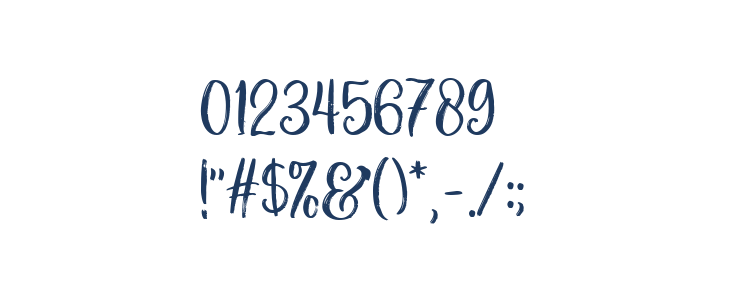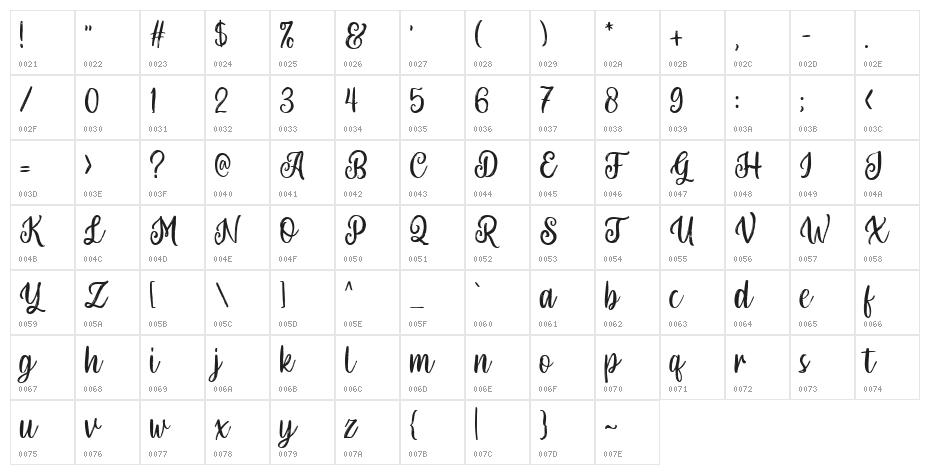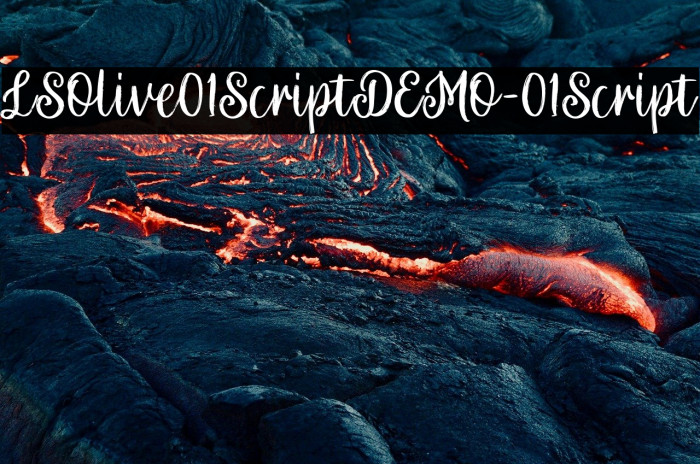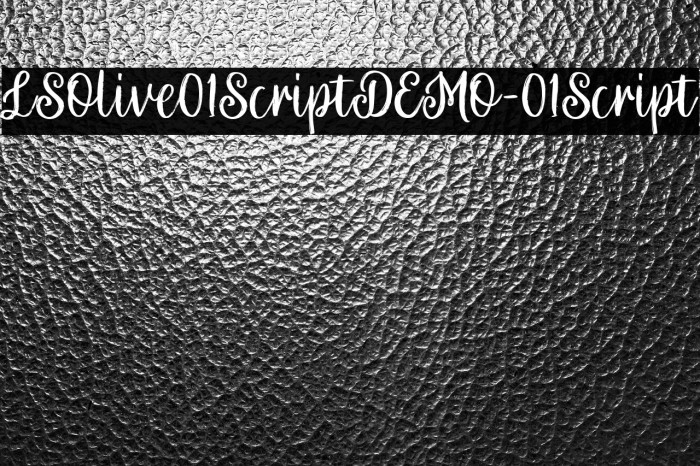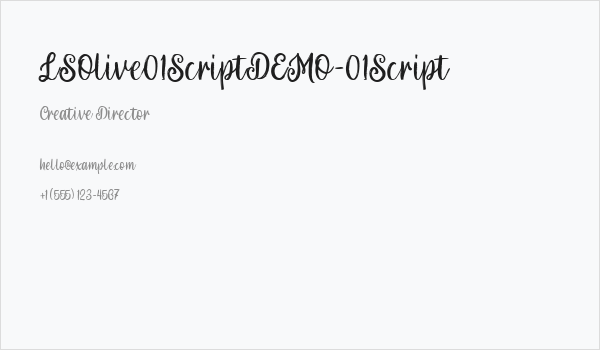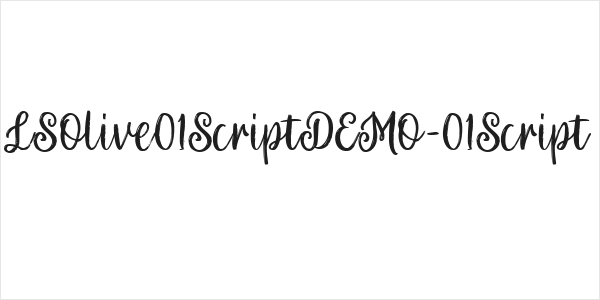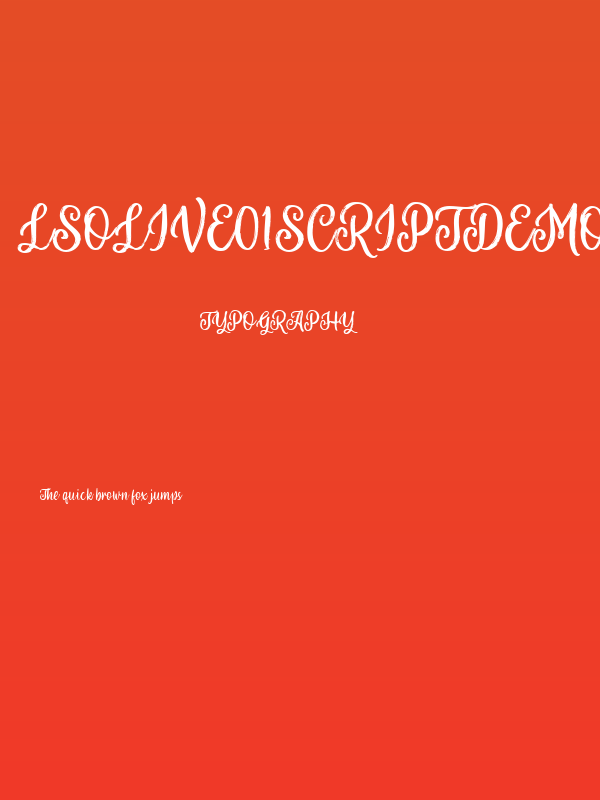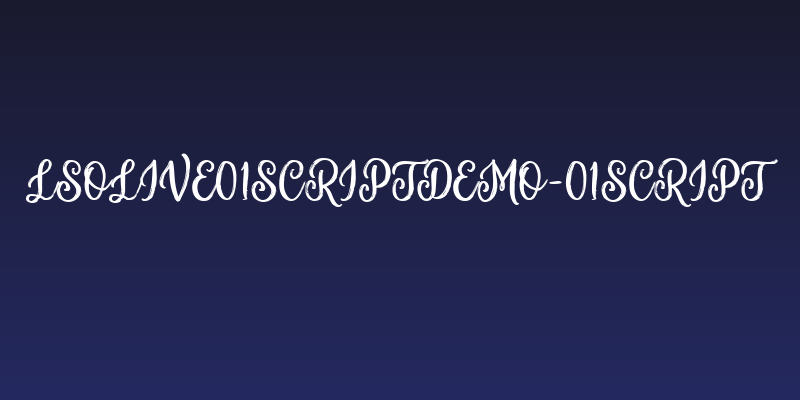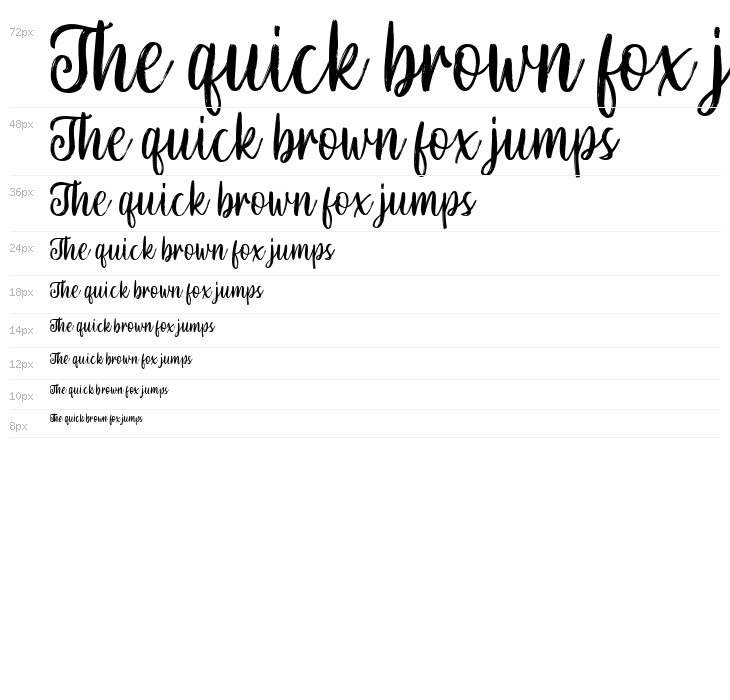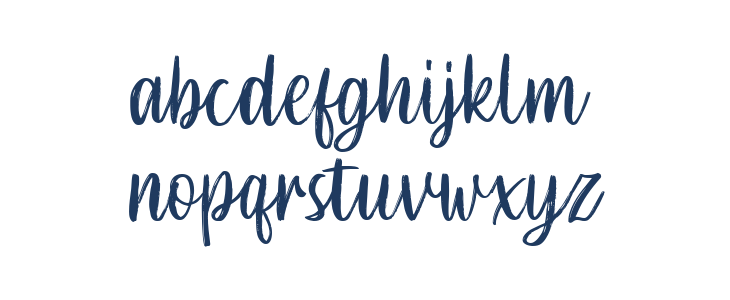
LSOlive01ScriptDEMO-01Script Font
LSOlive01ScriptDEMO-01Script Description
This font features a lively and expressive script style, characterized by its flowing, cursive letterforms. The uppercase letters are ornate with elegant swirls and loops, while the lowercase letters maintain a consistent, fluid motion that enhances readability. The numbers and special characters are crafted with the same attention to detail, providing a cohesive look across all glyphs. The strokes vary in thickness, adding a dynamic and textured appearance that mimics hand-drawn calligraphy. This font is perfect for projects that require a personal touch or a sense of elegance and creativity.